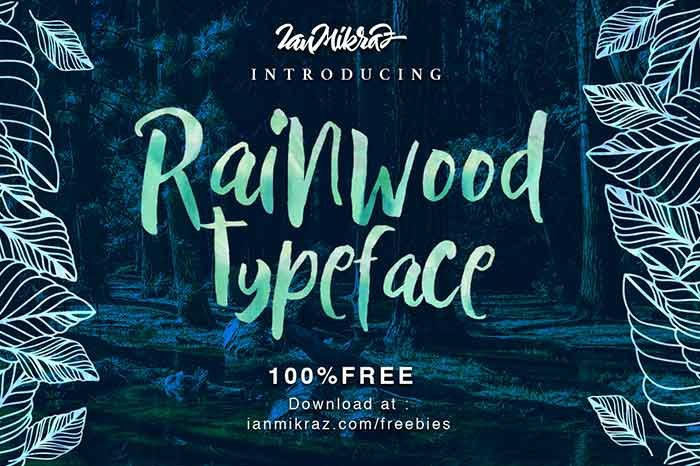
Rainwood Free Font
Rainwood commercial use font is a free font typeface is a new handmade painting style typeface font. It combines hand style, brush and paint touch.
Rainwood Free Font Typeface features 232 glyphs and 52 alternate character contain with opentype features.
2 Stylistic Alternates, Standart Ligature and more. You can access all those alternate characters by using OpenType savvy programs such as Adobe Illustrator, Adobe InDesign and CorelDraw X6-X7.
A Sneak Peek Into Rainwood Free Font: